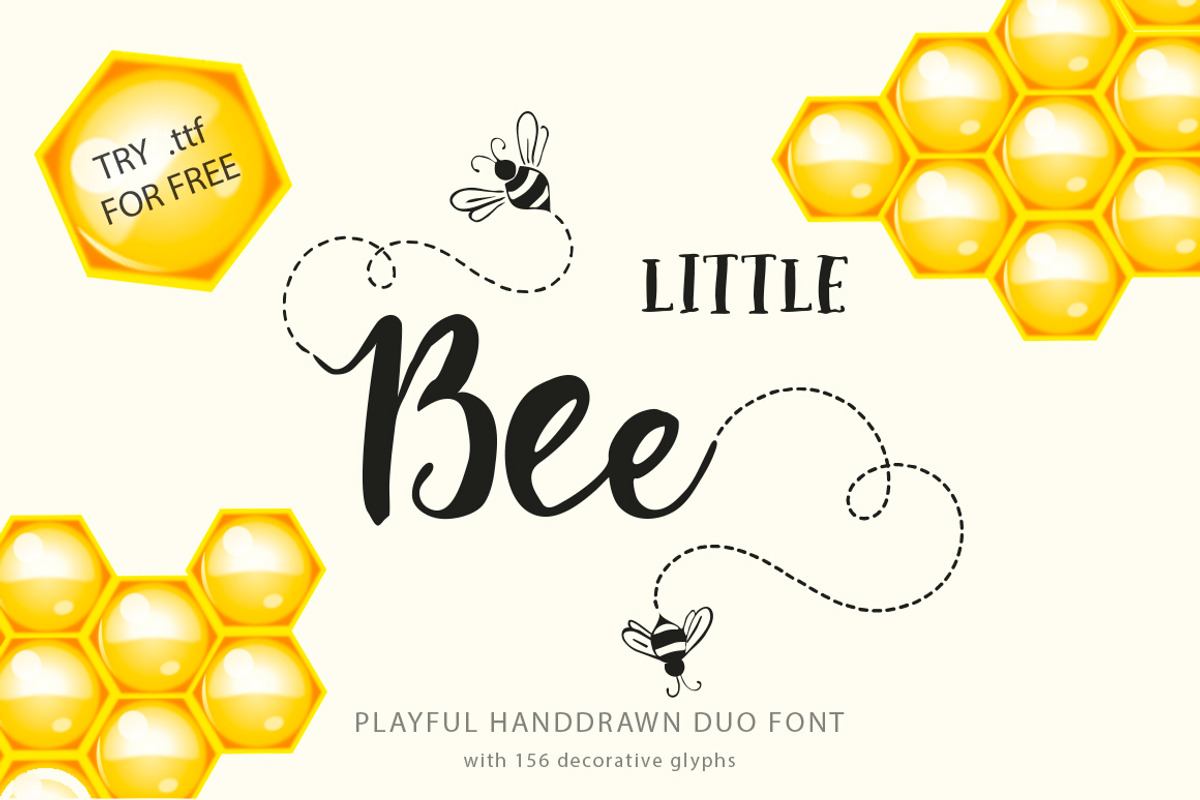
Cute, creative, and full of charm, Little Bee. Duo Font & Logos Free Download is a delightful typeface duo paired with ready-to-use logo templates, perfect for playful branding, children’s products, greeting cards, packaging, and social media graphics. This set combines a whimsical script with a clean sans-serif, giving you everything you need to create fun, balanced, and professional designs.
The included logos make it easy to build a brand with minimal effort—just customize the text, and you're ready to go. With hand-drawn details and a friendly vibe, Little Bee is great for anyone looking to bring warmth and personality to their visuals.